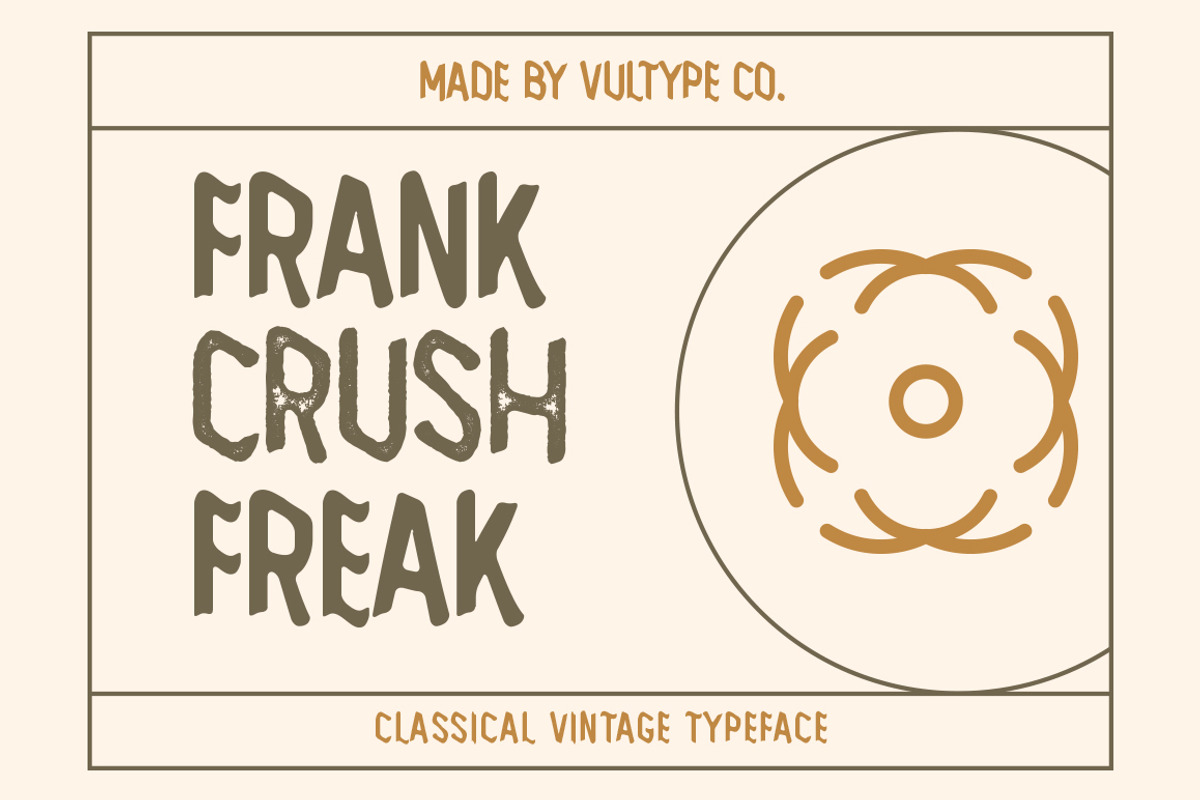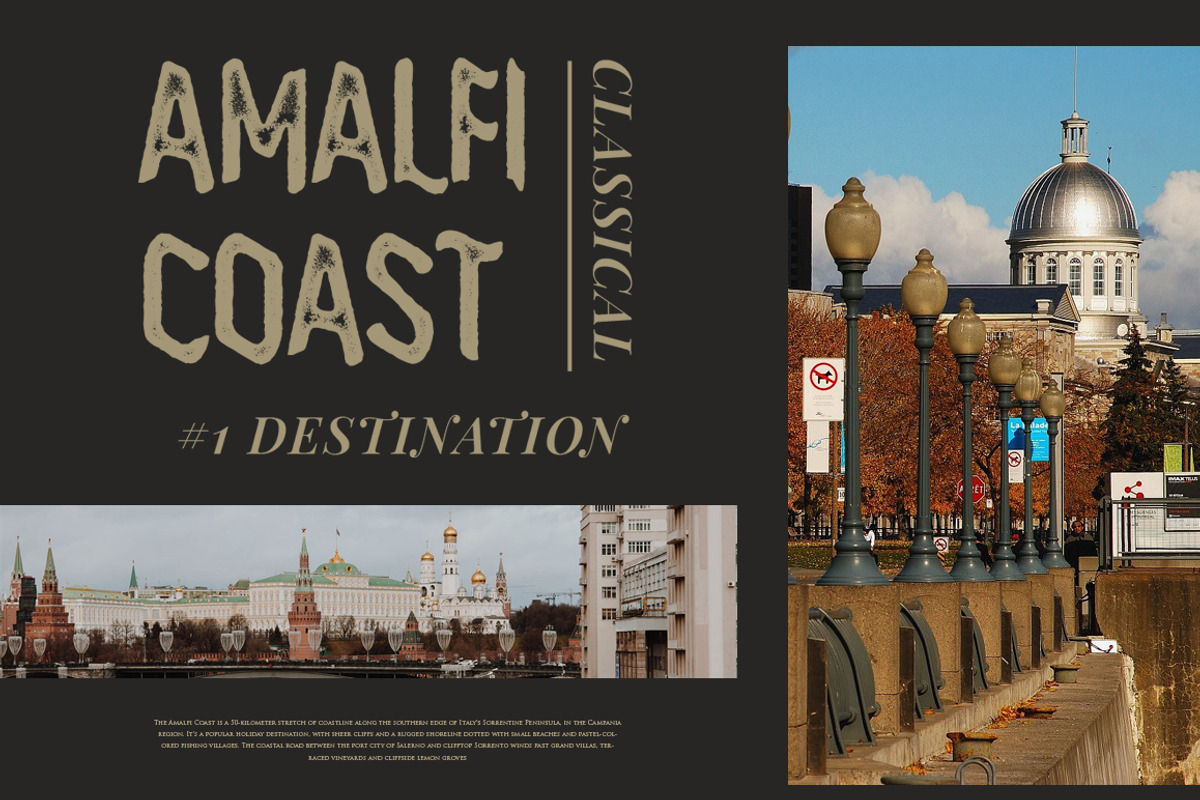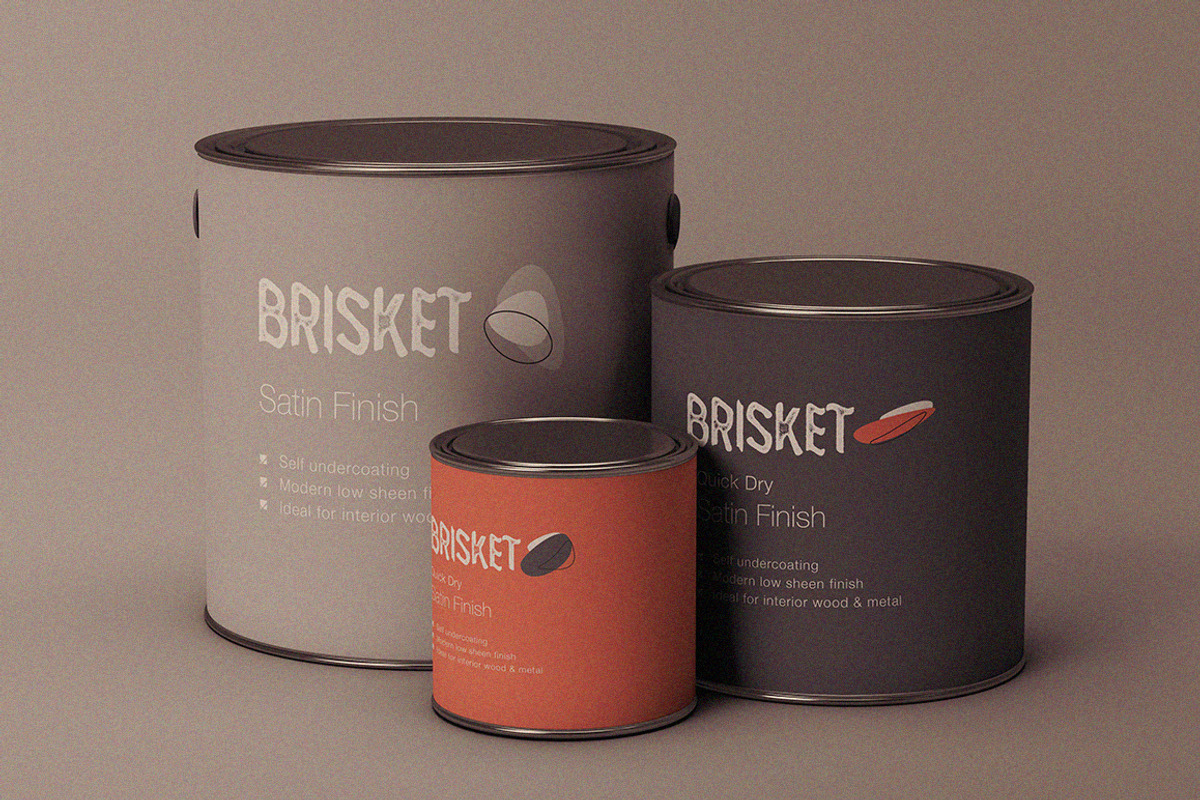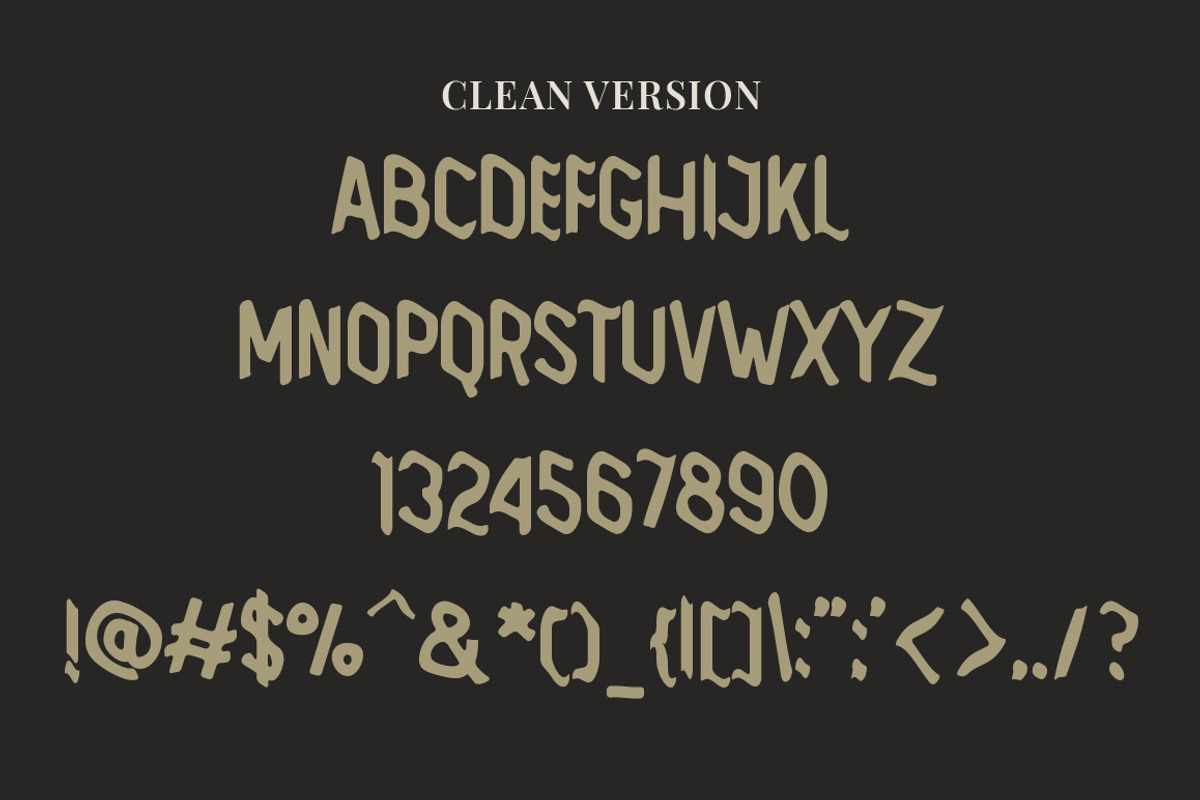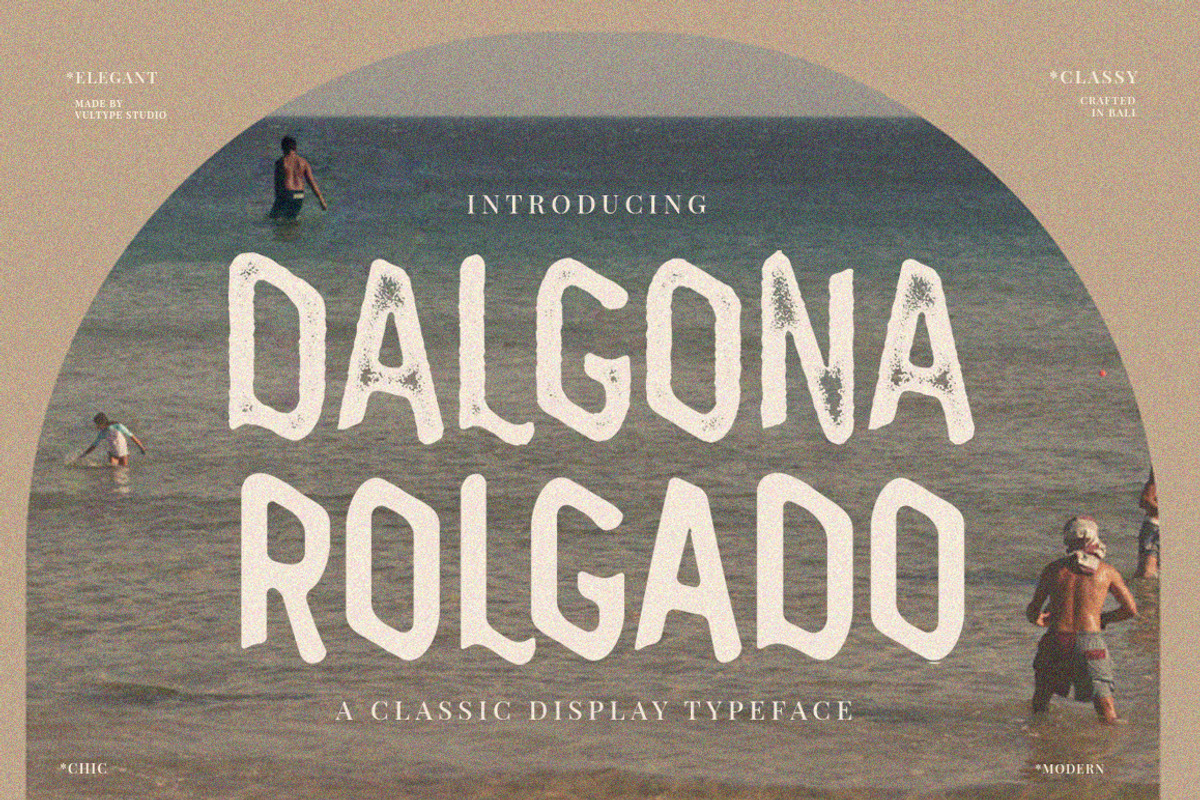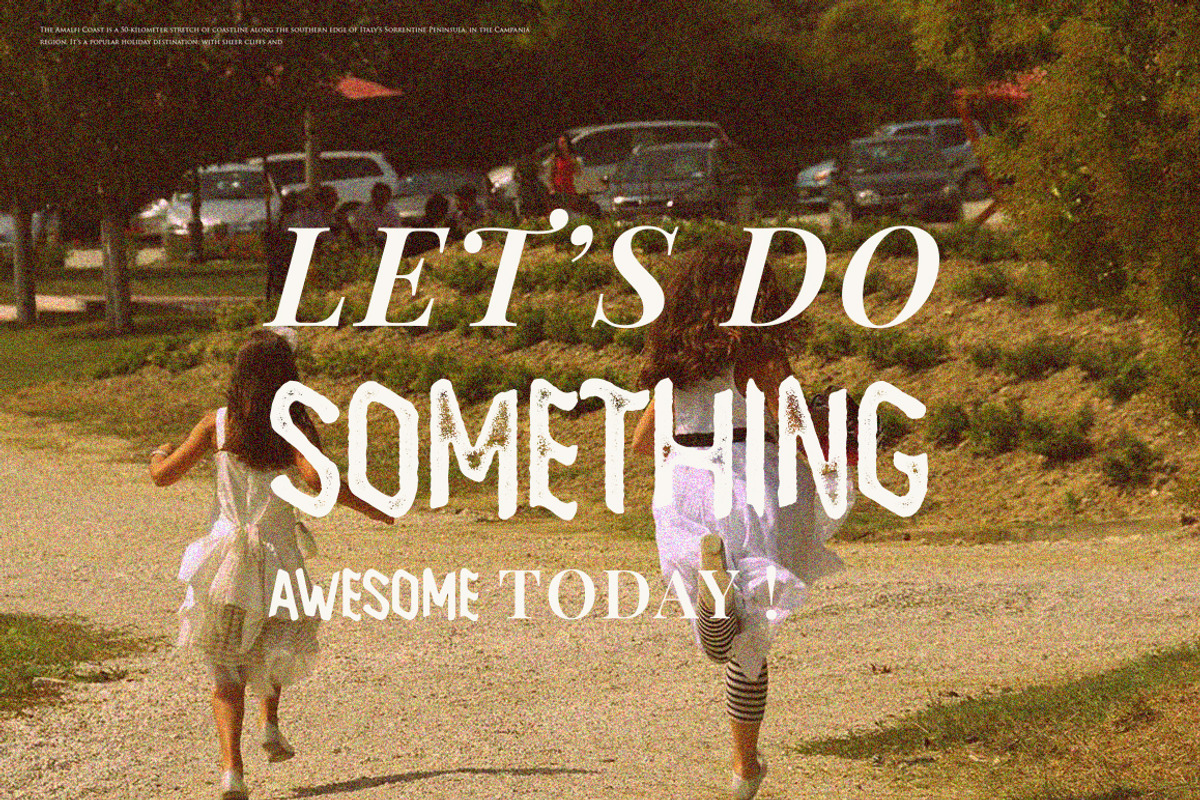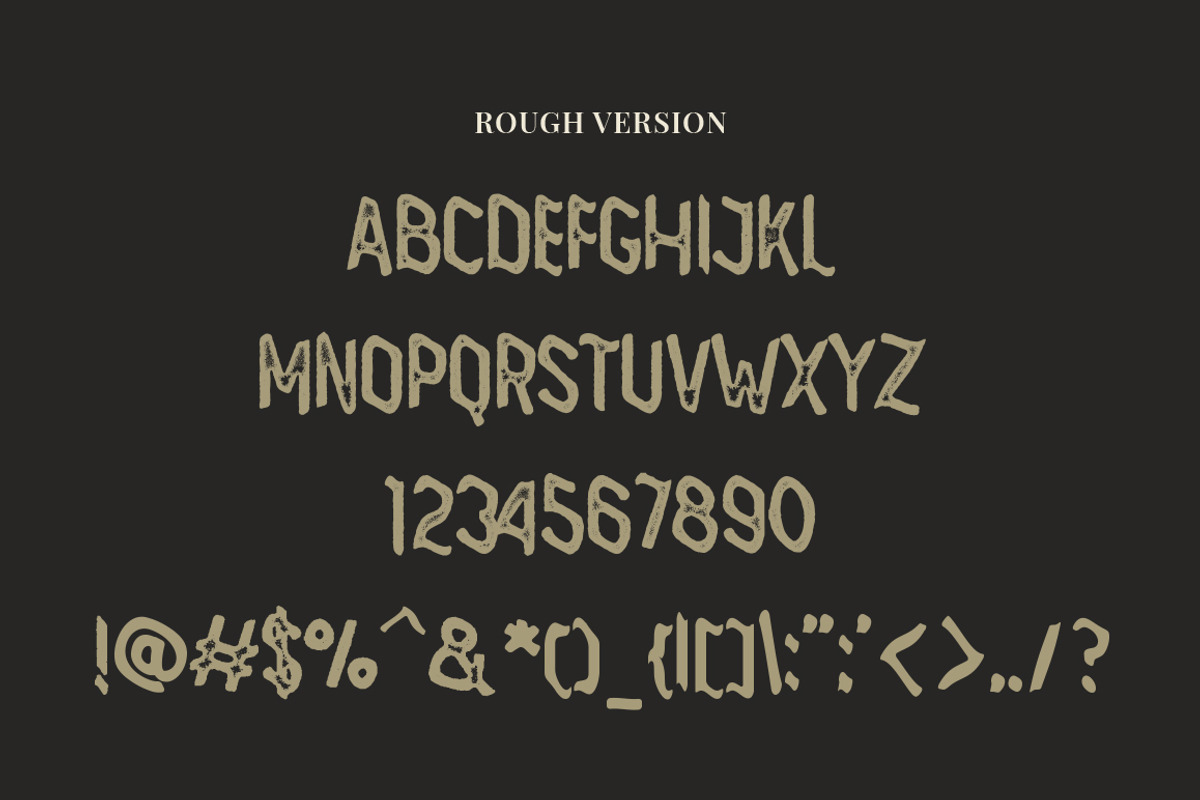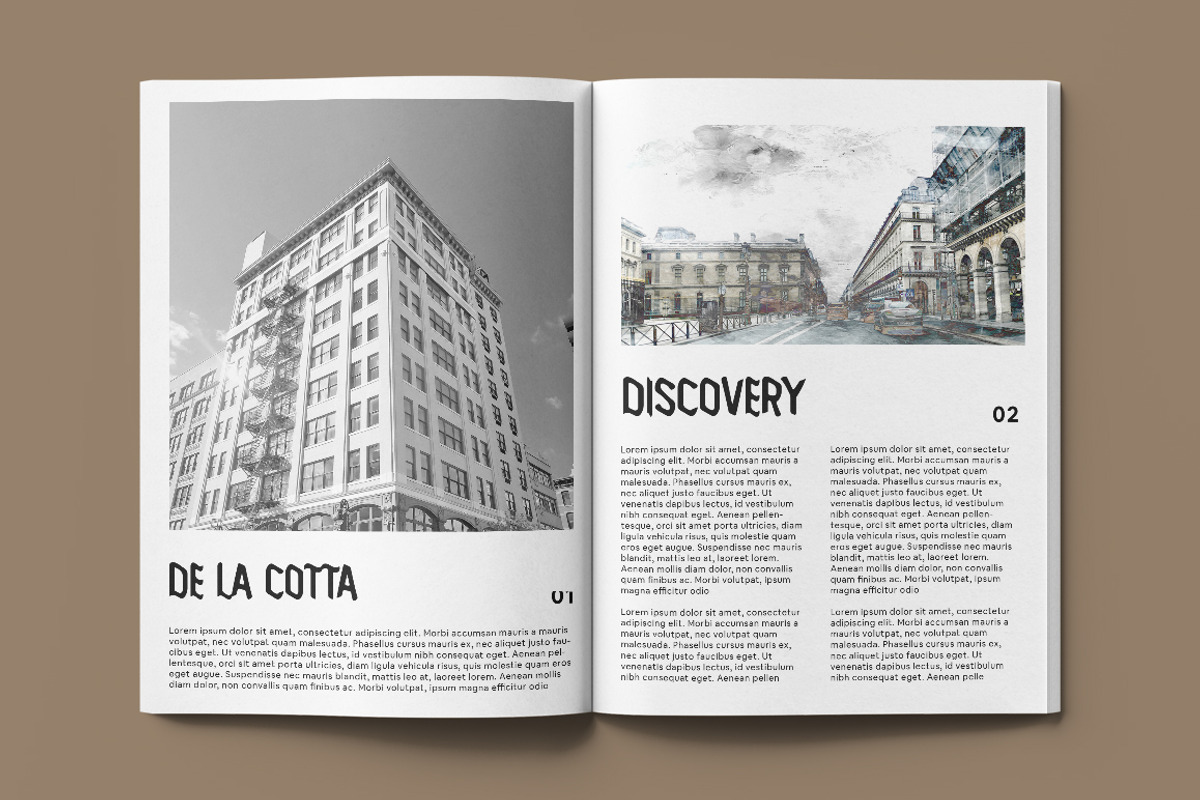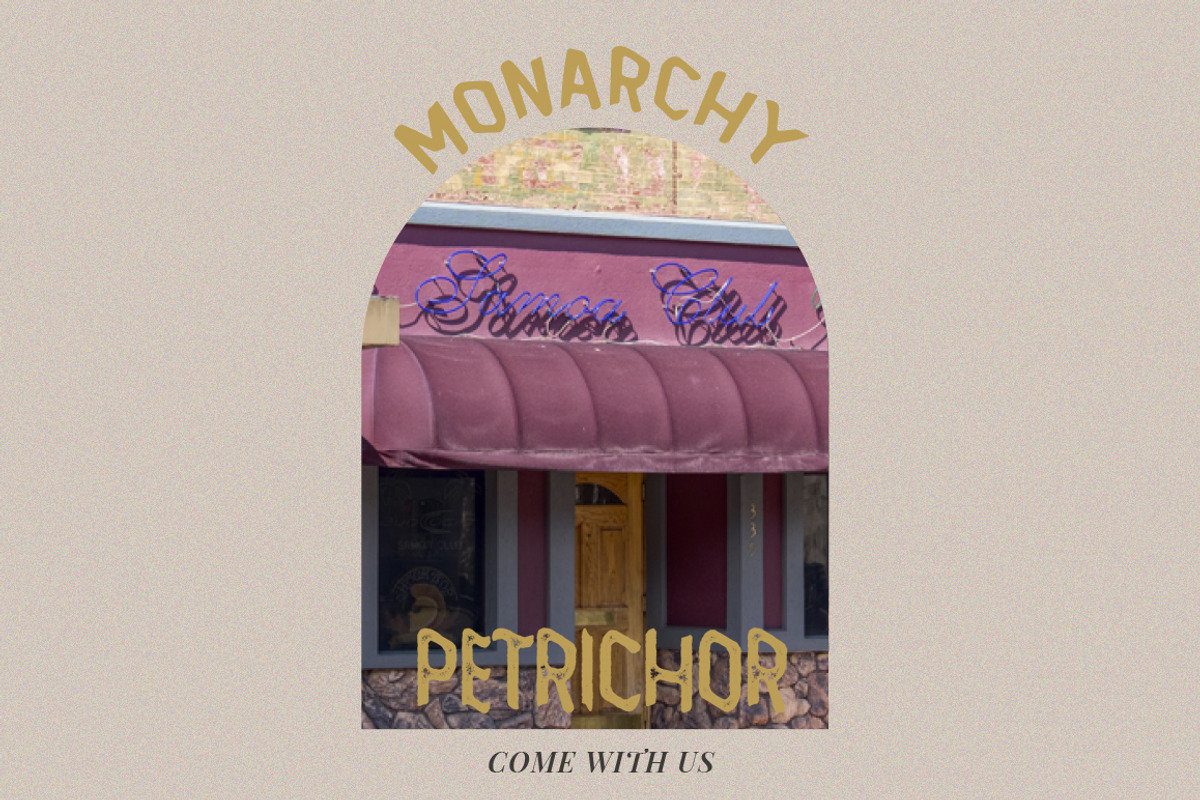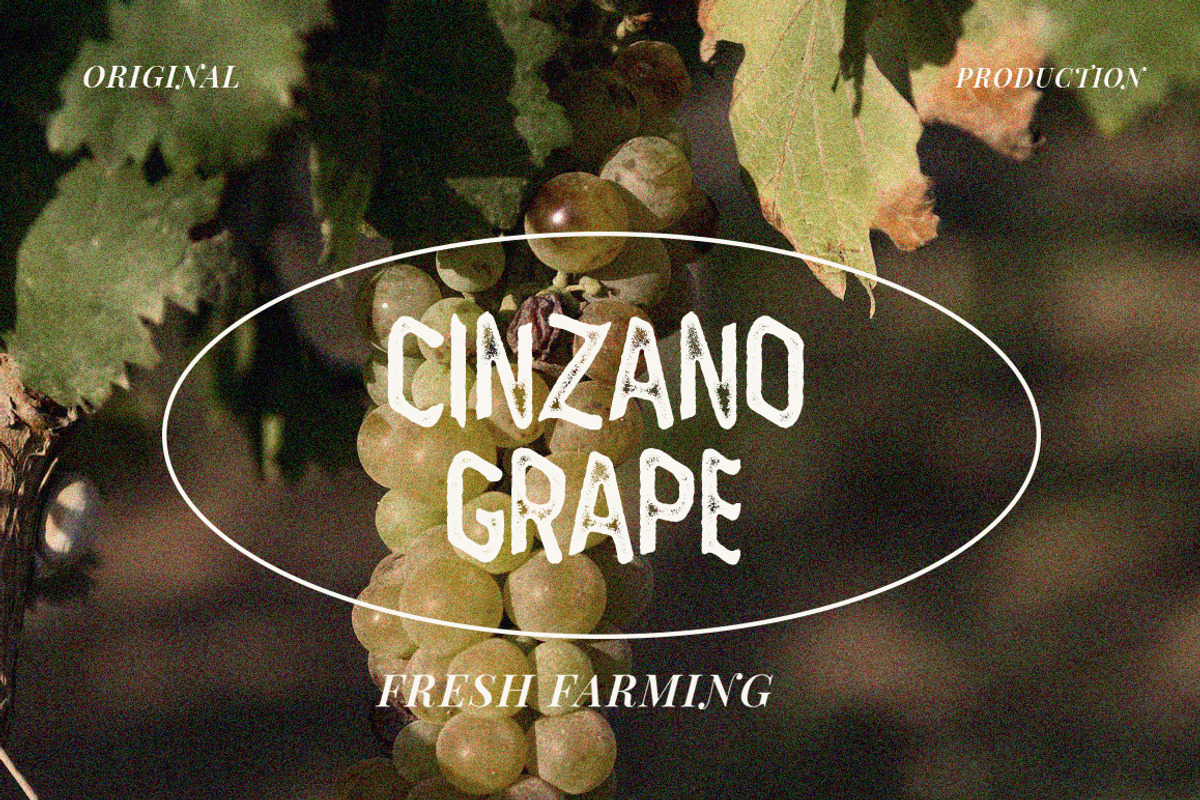
DALGONA ROLGADO !
Dalgona Rolgado is a vintage display typeface. A high contrast look that has been synonymous with 70s-60s for decades. This font is both modern and nostalgic and works great for logos, mastheads and pull quotes. It pairs beautifully with a minimal sans serif or light script font.
- Dalgona Rolgado Clean
- Dalgona Rolgado Rough
Dalgona Rolgado Features :
- Lowercase and Uppercase